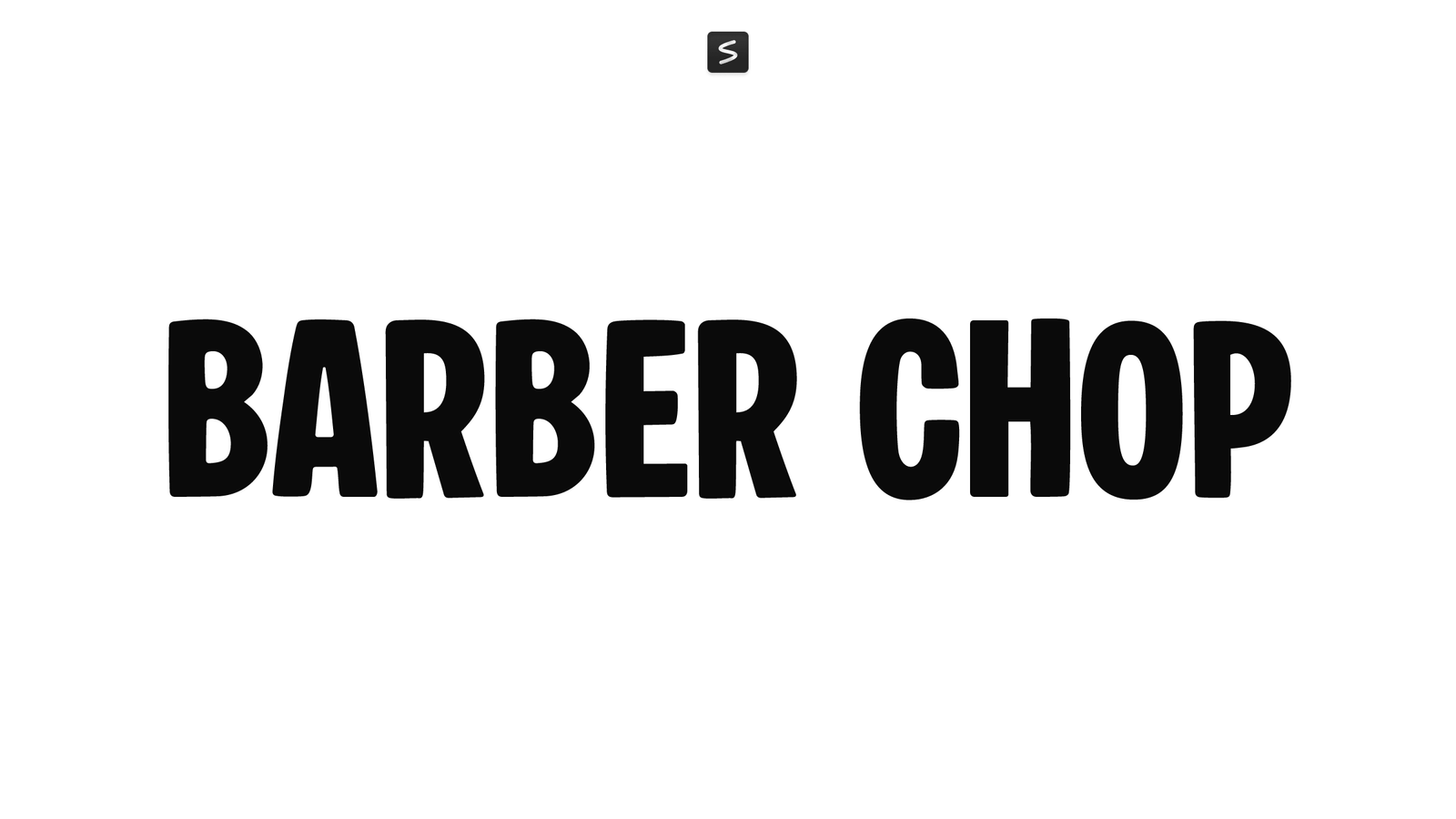
Barber Chop is a heavily weighted, all-caps display sans designed by Eko Bimantara. Its exaggerated stroke weight and slightly condensed letterforms evoke vintage barbershop signs and comic book lettering, with a straightforward, unpretentious character that reads loud and clear.
The font works well for posters, logos, casual branding, and headlines where personality matters more than refinement. Its chunky proportions and playful geometry make it suitable for retro designs, record covers, or anything that needs visual punch without fussiness.
Barber Chop is a solid choice when you want text that feels friendly and energetic, grounded in mid-century vernacular design rather than modern polish.